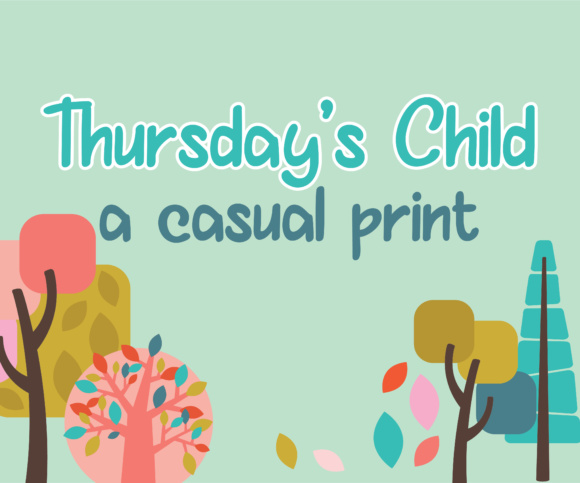
Let your designs burst with the free-spirited energy of Thurday's Child, a whimsical script font that dances across your projects with an infectious joy. This casual, print font is no ordinary typeface; it's an invitation to unleash your creativity and add a touch of magic to your designs.
Thurday's Child is the brainchild of Illustration Ink, an esteemed design studio with a knack for creating fonts that resonate with the modern aesthetic. Their vision for this font was to capture the essence of a carefree childhood, where imagination reigns supreme and every day is an adventure waiting to be explored.
This captivating font family beautifully embodies the playful spirit of youth and the timeless charm of handwritten notes. The smooth, flowing lines evoke a sense of nostalgia, a yearning for simpler times when laughter echoed through the streets and dreams were boundless. Thurday's Child encapsulates this spirit, making it the perfect choice for personalizing your designs and adding a touch of whimsy to your creative endeavors.
Whether you're designing playful posters, eye-catching social media graphics, or heartfelt greeting cards, Thurday's Child is your trusted companion. Its versatile character set allows for endless creative possibilities, enabling you to express your unique style and make a lasting impression on your audience.
This font is a treasure trove of creative opportunities, ready to transform your designs into captivating works of art. Its versatility knows no bounds, seamlessly adapting to a diverse range of projects. From whimsical logos that dance with joy to enchanting wedding invitations that exude elegance, Thurday's Child is the ultimate tool to bring your creative visions to life.
It's more than just a font; it's an experience, a journey into the realm of imagination where creativity flourishes and dreams take flight. Thurday's Child is your passport to this enchanting world, where your designs will radiate with a sense of wonder and enchantment.